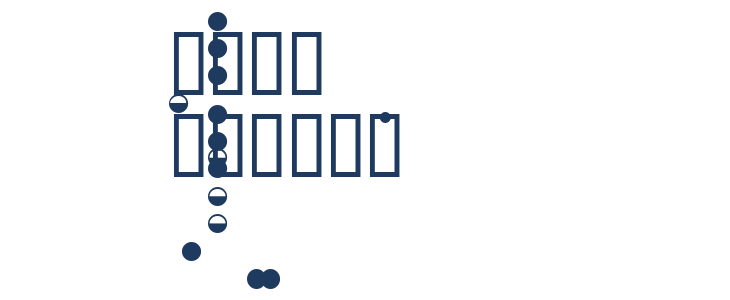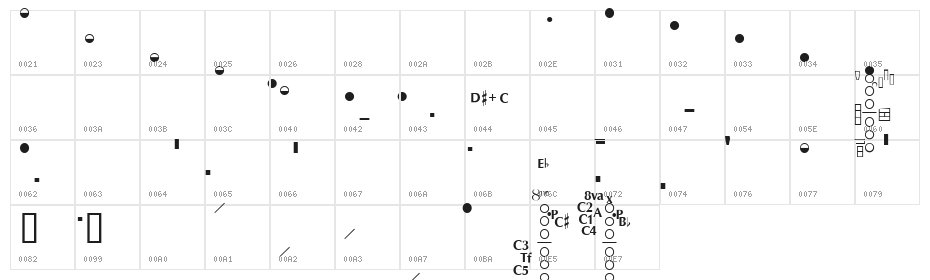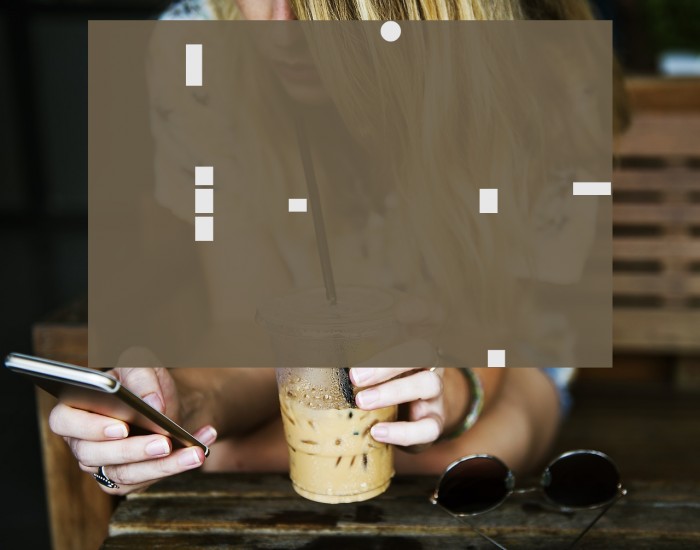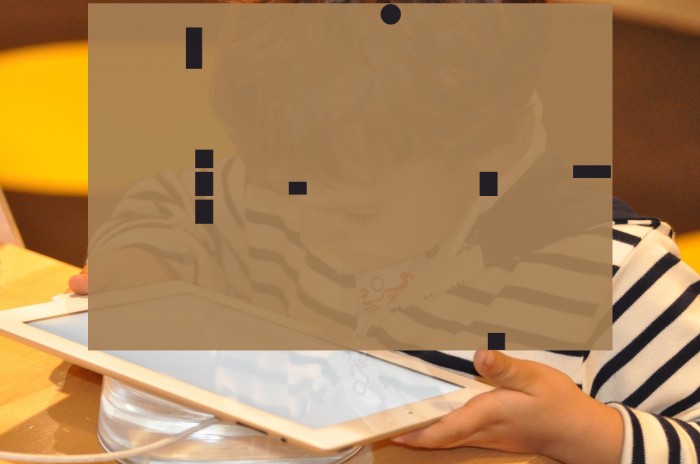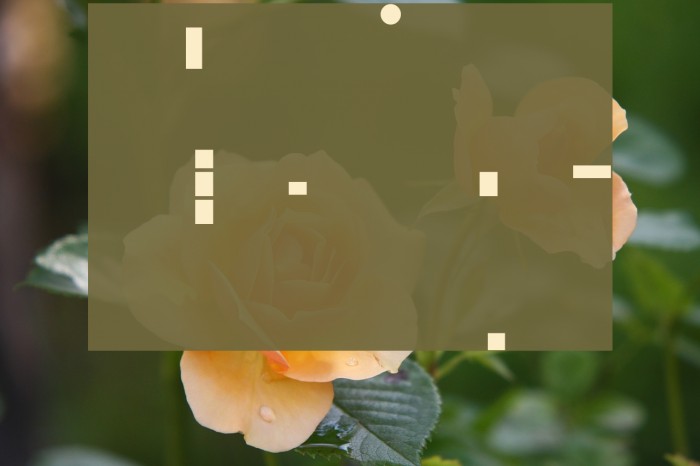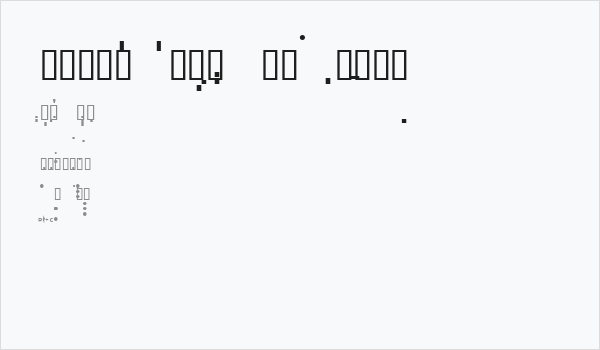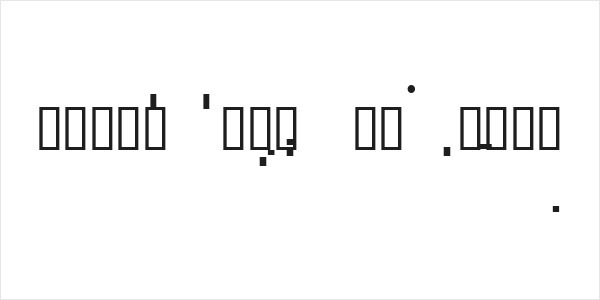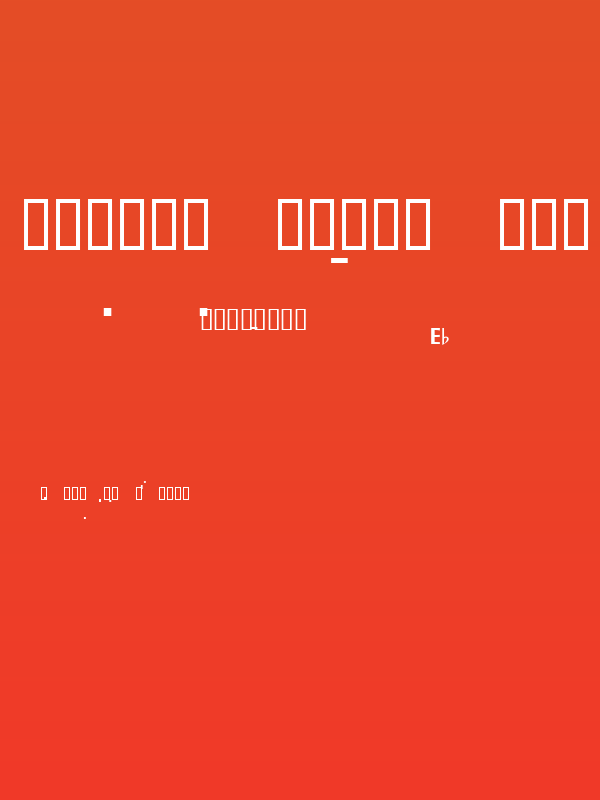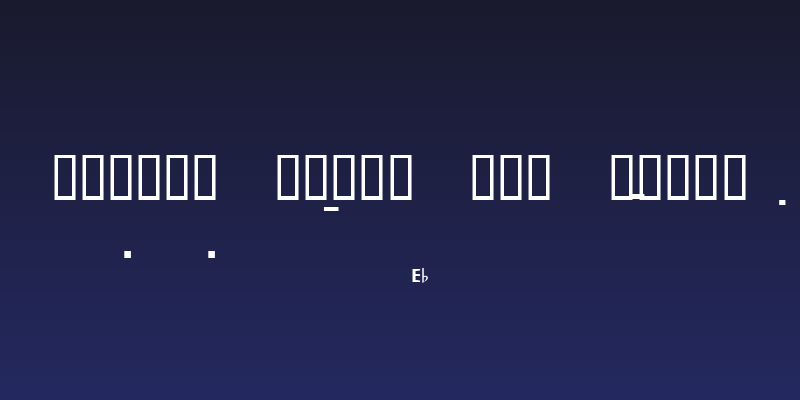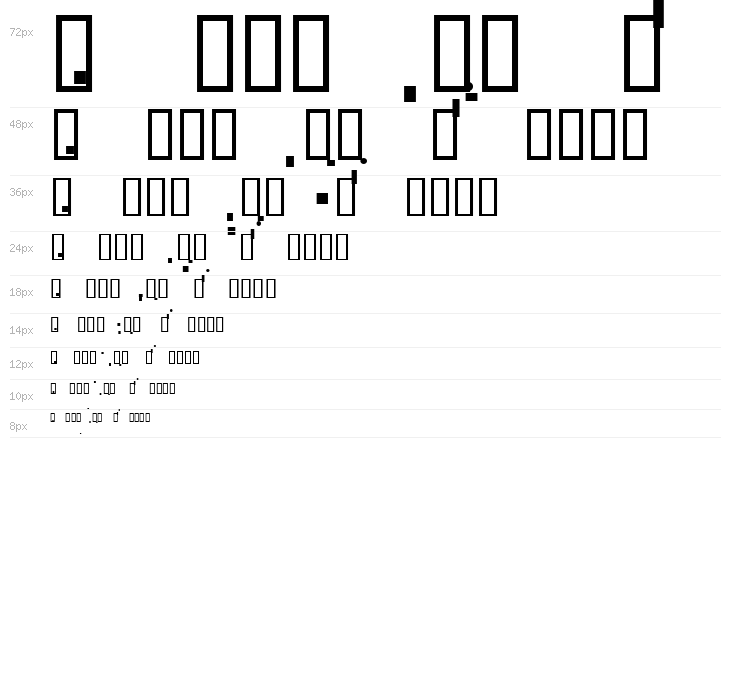
Woodwind Tablature Sax Graphic Font
Woodwind Tablature Sax Graphic Description
This is a graphic tablature system for woodwind instruments, specifically saxophone, using rectangular outlines and filled circles to indicate finger positions rather than a traditional font. The symbols represent fingering charts rather than alphanumeric characters.
| Overall Style | Instructional graphic |
| Use Case | Instrument fingering guides |
| Proposed Projects | Instrument instruction sheets, music education materials, fingering charts. |